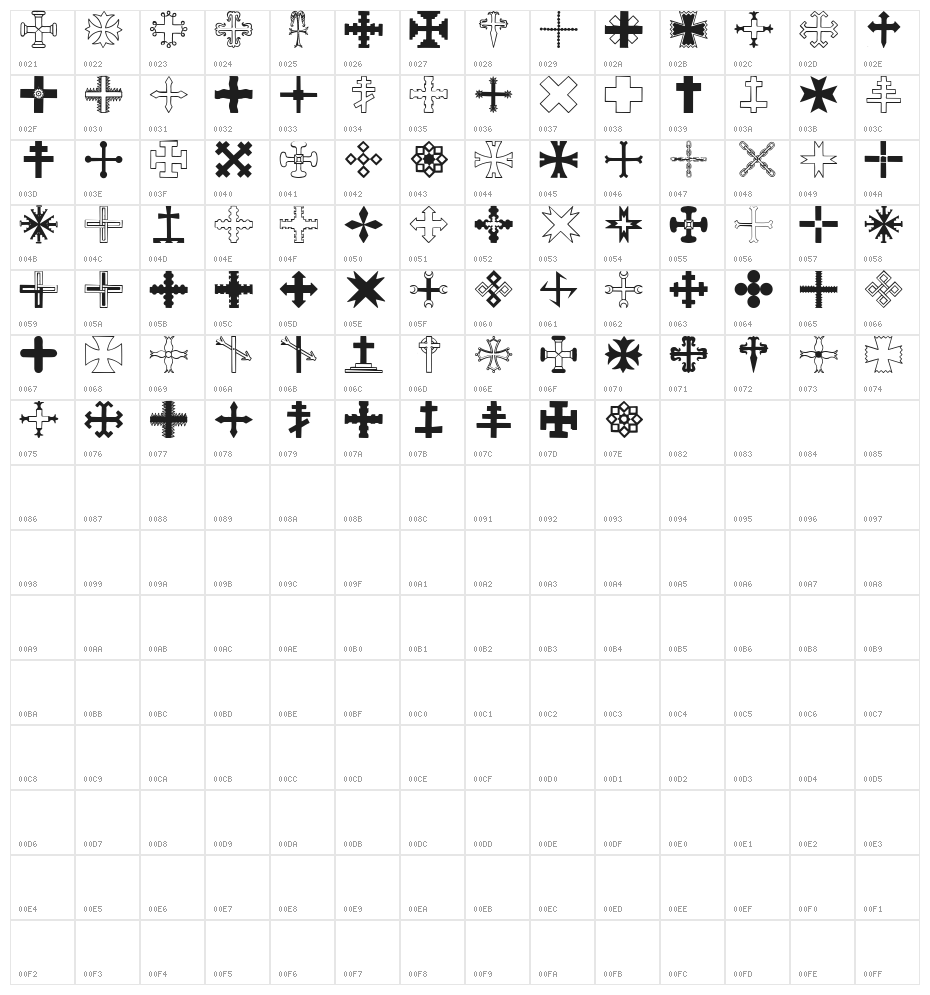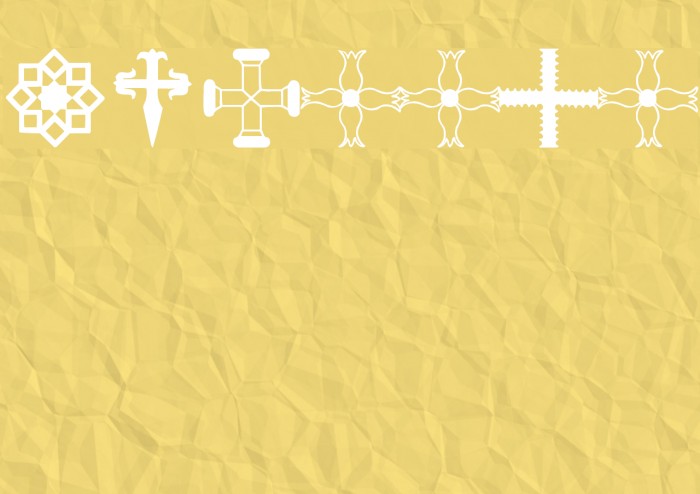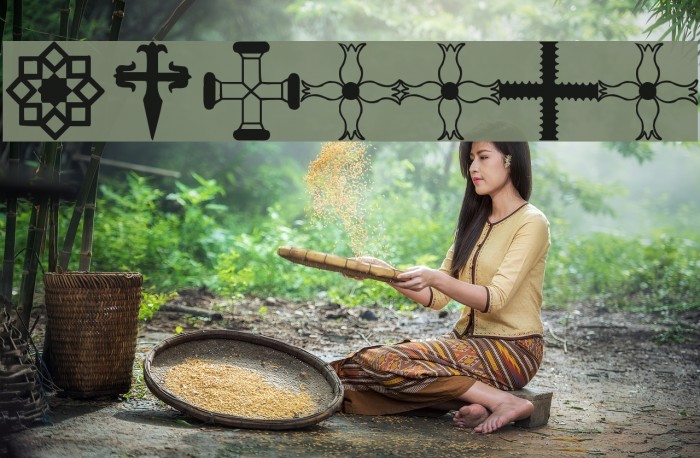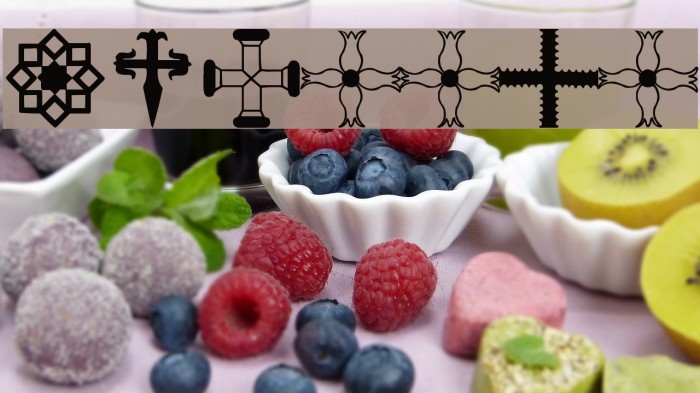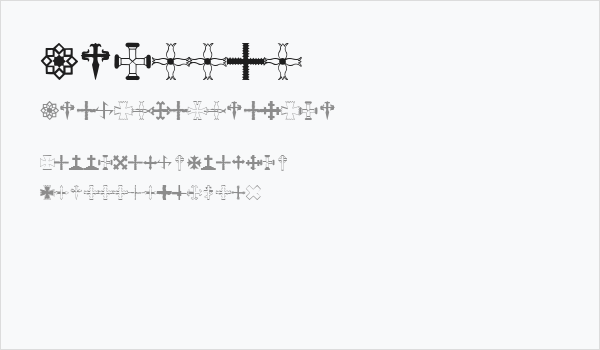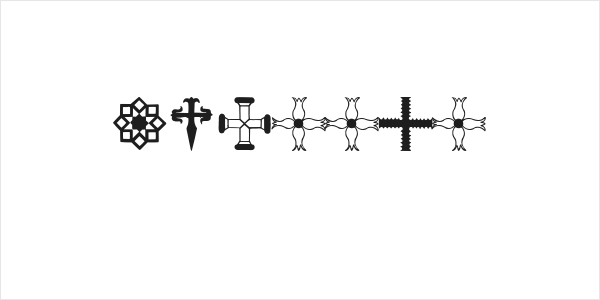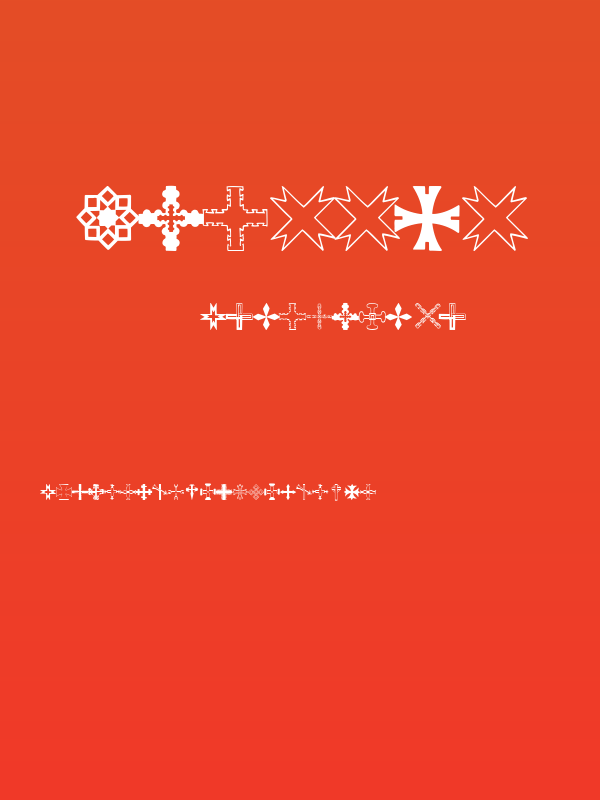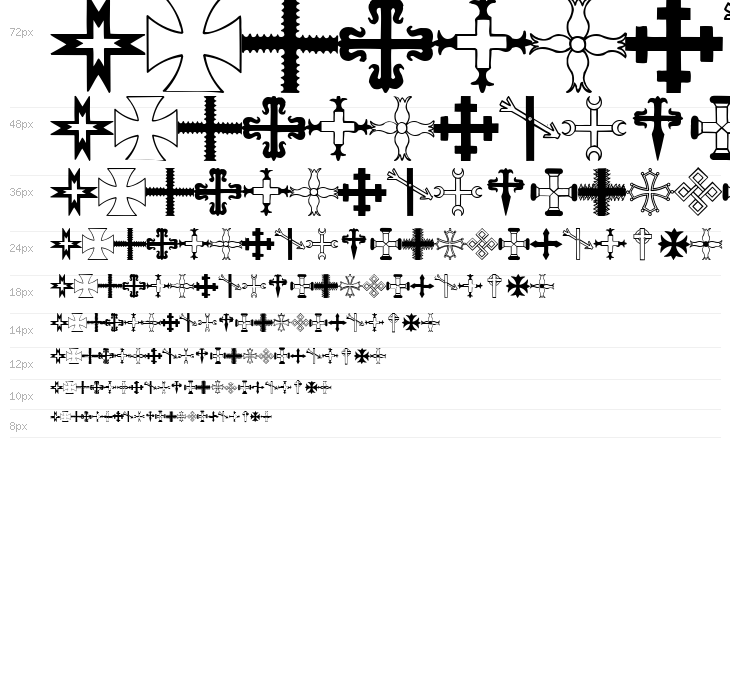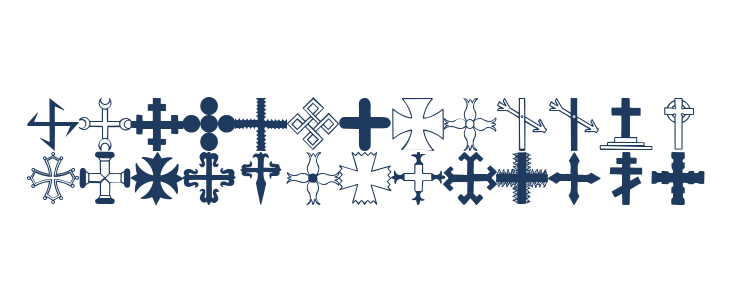
Crosses Font
Crosses Description
A decorative display font composed entirely of various cross symbols, each character featuring a unique and intricate cross design with a mix of solid and outlined styles, high visual diversity, and ornamental details.
Overall StyleDecorative, Ornamental, Thematic
Use CaseLogos, Decorative elements, Themed headlines, Posters
Proposed ProjectsReligious event materials, historical or cultural posters, themed invitations, graphic design accents, logo elements, tattoo designs.